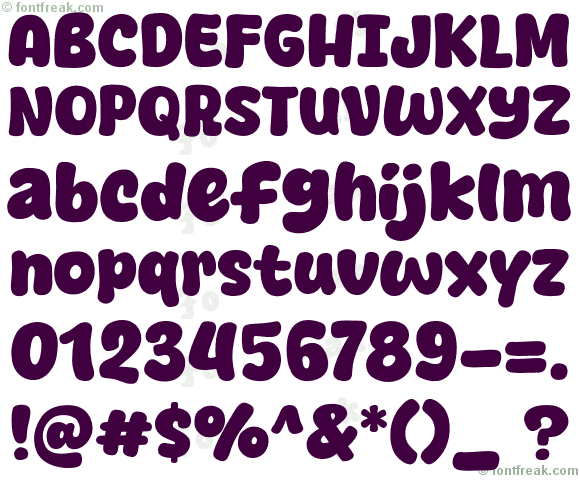
Yang Bagus
About Yang Bagus
Yang Bagus by Syaf Rizal is a distinctive display font that captures attention with its playful and bold character. This typeface features rounded edges and a consistent stroke weight, creating an inviting and friendly appearance. The visual characteristics include a moderate contrast that enhances readability while maintaining a fun aesthetic, making it suitable for various creative projects. The spacing is well-balanced, allowing for clear communication without feeling cramped, which is essential for any effective design.
This font shines in specific use cases, such as vibrant wedding invitations that want to convey joy and celebration, striking movie posters that require a touch of whimsy, eye-catching restaurant menus that draw diners in with a playful tone, and engaging social media graphics that capture the essence of a brand’s personality. Graphic designers, small business owners, and content creators will find Yang Bagus to be an excellent addition to their typography toolkit, as it offers versatility across multiple contexts.
What sets the Yang Bagus font apart is its unique ability to blend charm with functionality. Its design encourages creativity while ensuring that your message remains clear and inviting. Whether you are crafting a lighthearted brand identity or designing promotional materials that require a touch of fun, this font delivers on both style and substance. For those interested in enhancing their projects, the Yang Bagus font free download makes it accessible for everyone looking to elevate their design work. With its standout features and versatility, Yang Bagus is a must-have for anyone aiming to create memorable visual experiences.